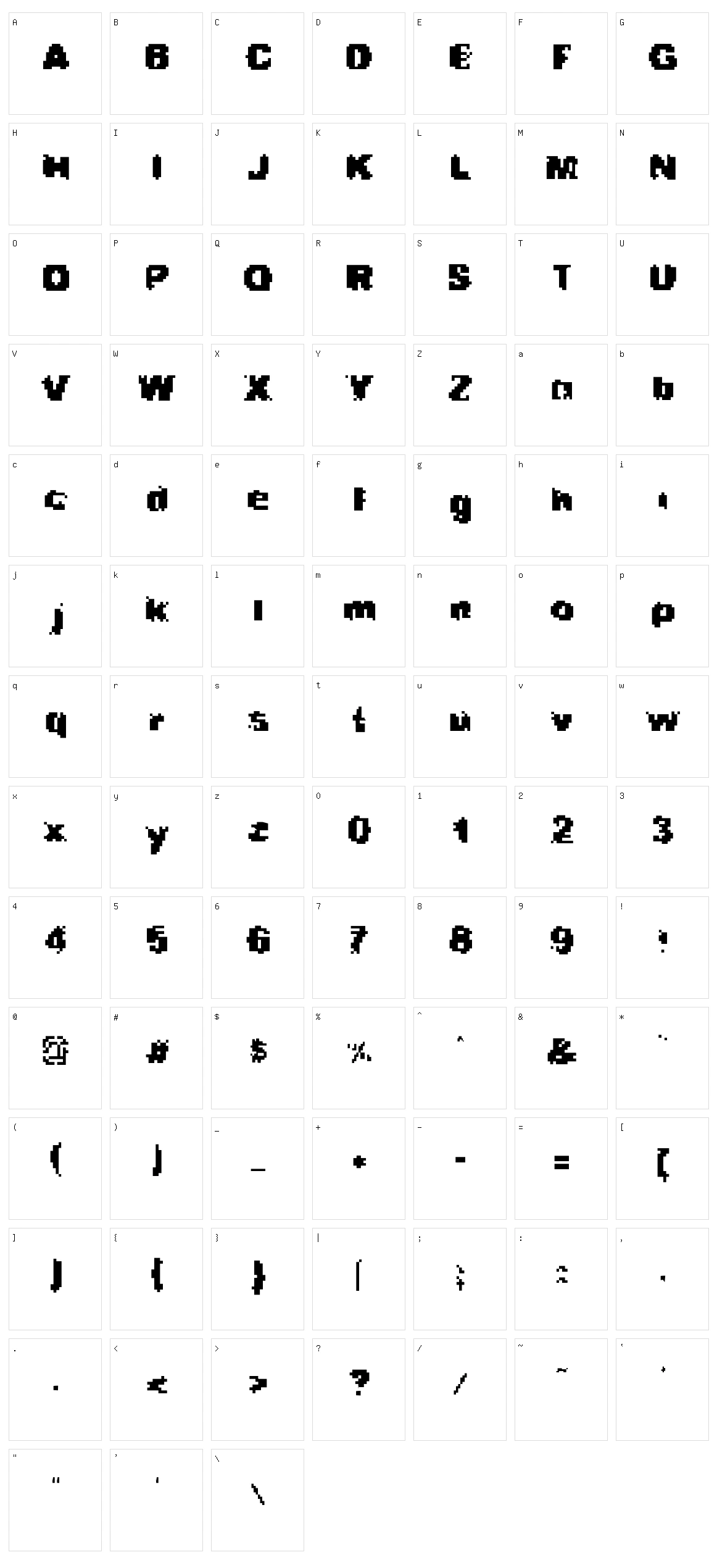
Violent Alligator
Designed by: The Space Wanderer
Violent Alligator created using Font Creator Program 3
By Eric Wiryanata. August 2007
a pixelated Arial Font.
Note#2: This typeface is ideal for logos and general design.
It isn't very suitable to be used with word-processors as it lacks some symbols and letters.